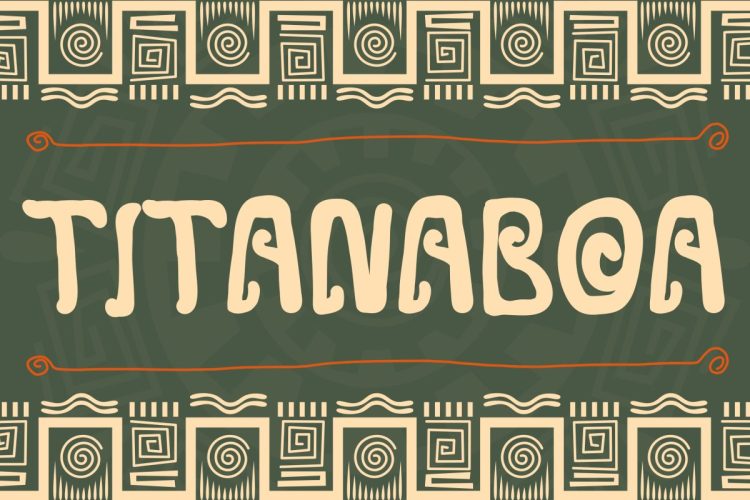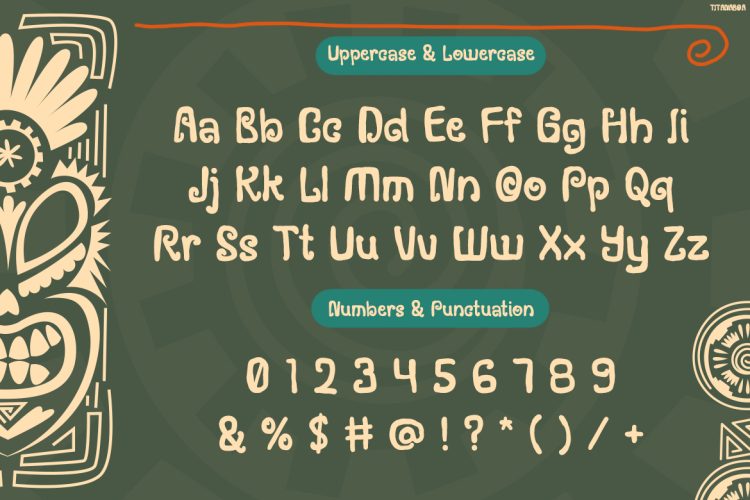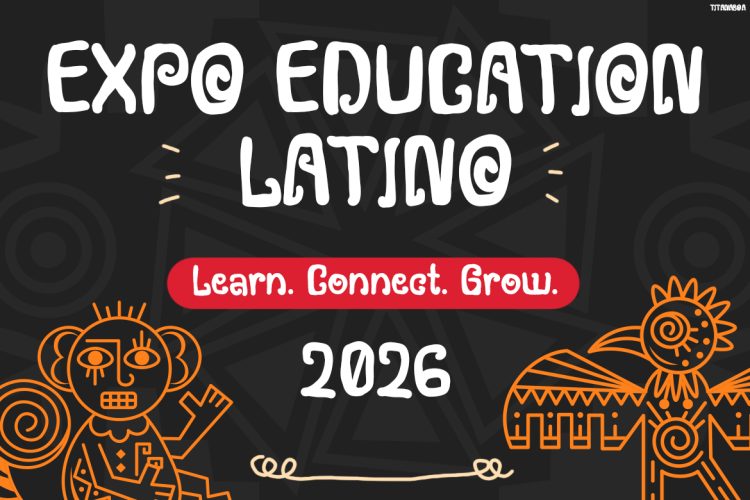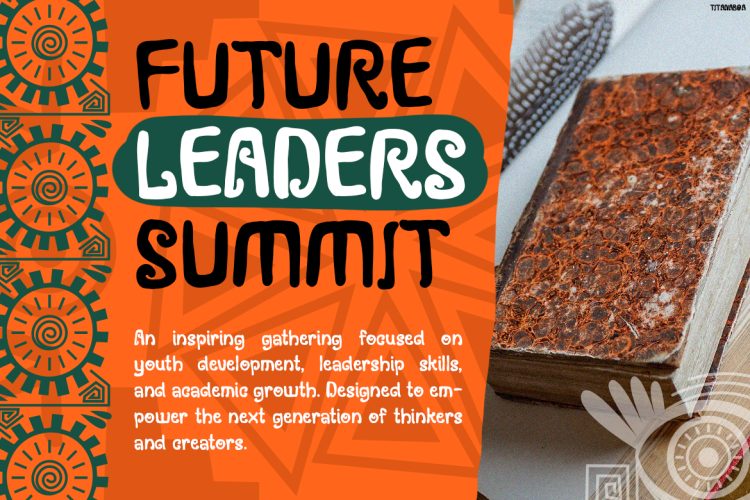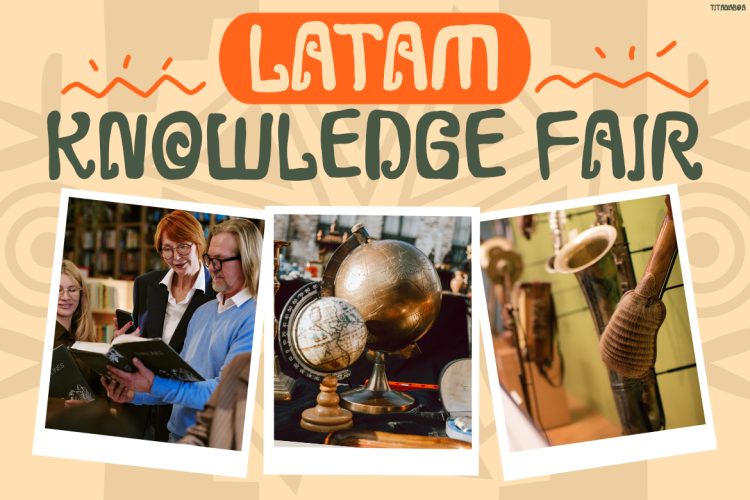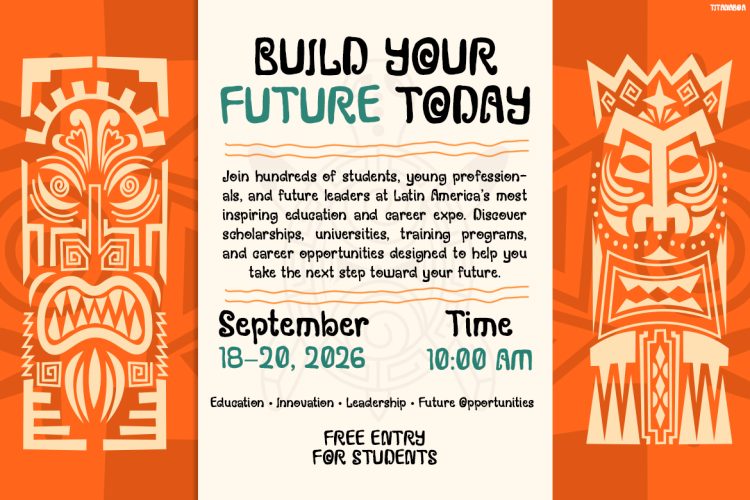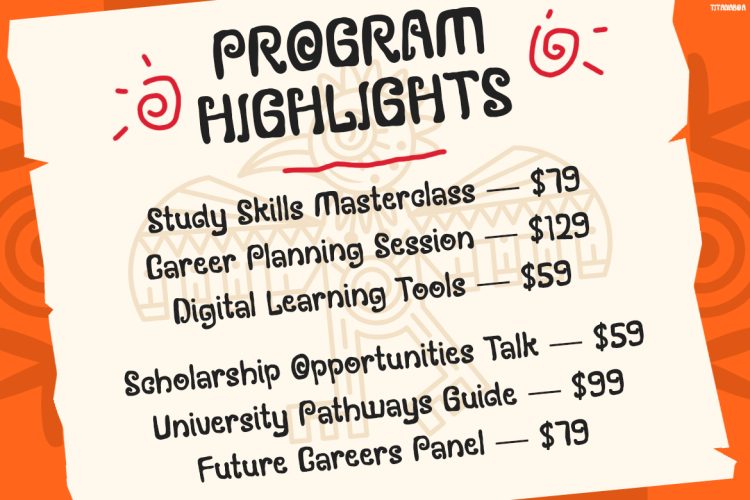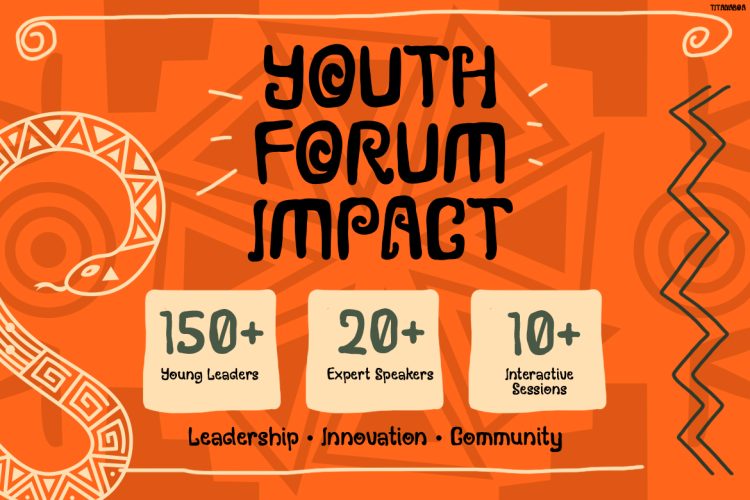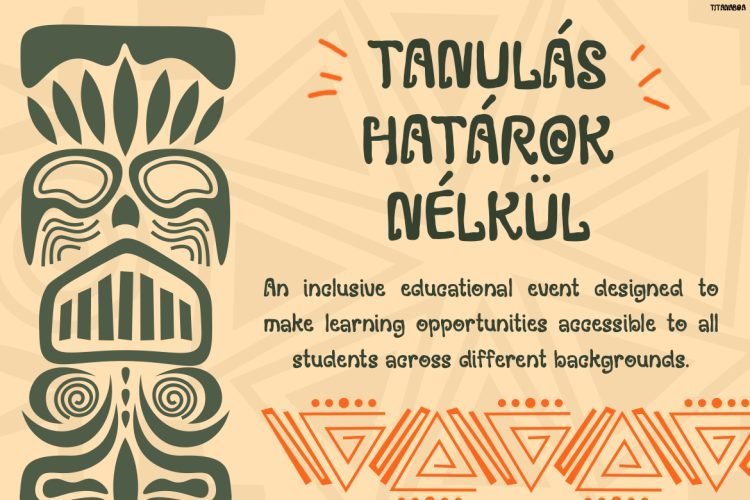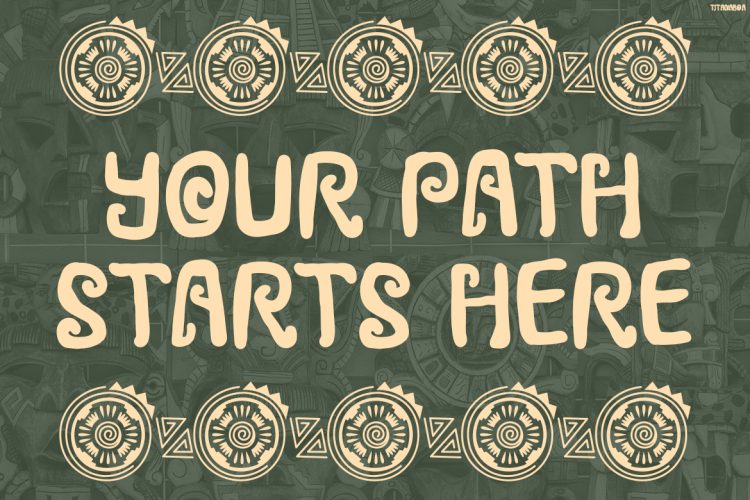
Instagram Font Titanaboa โ Ancient Heritage Meets Modern Learning
Instagram Font Titanaboa is a bold display font that blends tribal heritage with modern educational design. Not only does it feature handcrafted letterforms, but it also incorporates ethnic-inspired details that create a unique visual identity. Moreover, its decorative geometric elements add cultural depth and authenticity. In addition, the font delivers a warm and approachable personality that helps designs feel more engaging. Furthermore, its strong structure ensures excellent readability across both print and digital media. As a result, every headline, poster, or social media graphic becomes more memorable. Meanwhile, the handcrafted aesthetic brings a sense of tradition and creativity to contemporary projects. Additionally, Titanaboa supports 67 languages, allowing creators to communicate with diverse audiences worldwide. Therefore, it is an excellent solution for multicultural and international projects.
Instagram Font Titanaboa Perfect For
Titanaboa is designed for projects that celebrate culture, education, and community engagement. Whether you’re creating school campaigns, educational materials, museum exhibits, cultural festivals, youth programs, or social media content, this font helps your message stand out. Likewise, its tribal-inspired appearance adds a distinctive character to every design. Furthermore, its decorative details enhance visual storytelling. Consequently, audiences can connect more deeply with your content. At the same time, its bold display style keeps important information easy to read.
Who Can Use It?
- Schools and Educational Institutions
- Cultural Organizations
- Community Leaders
- Event Organizers
- Youth Programs
- Museums and Heritage Projects
- Non-Profit Organizations
- Social Media Creators
- Graphic Designers and Branding Agencies